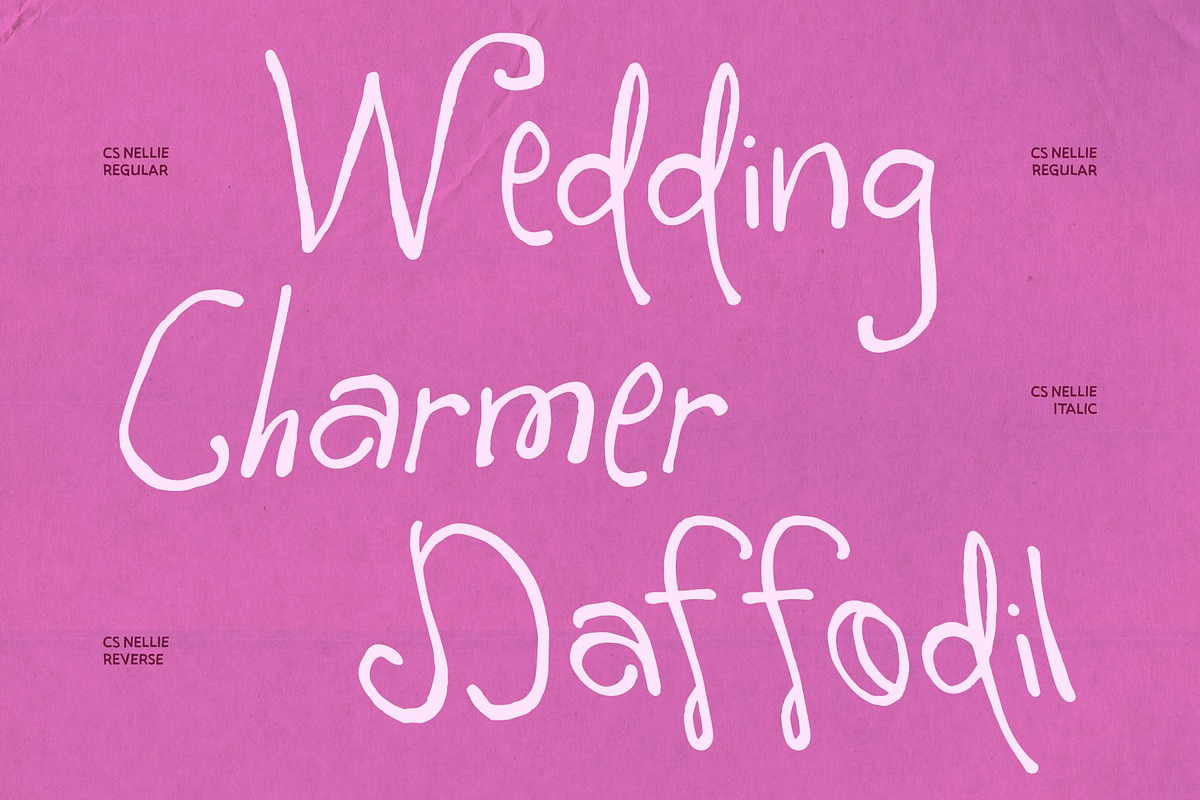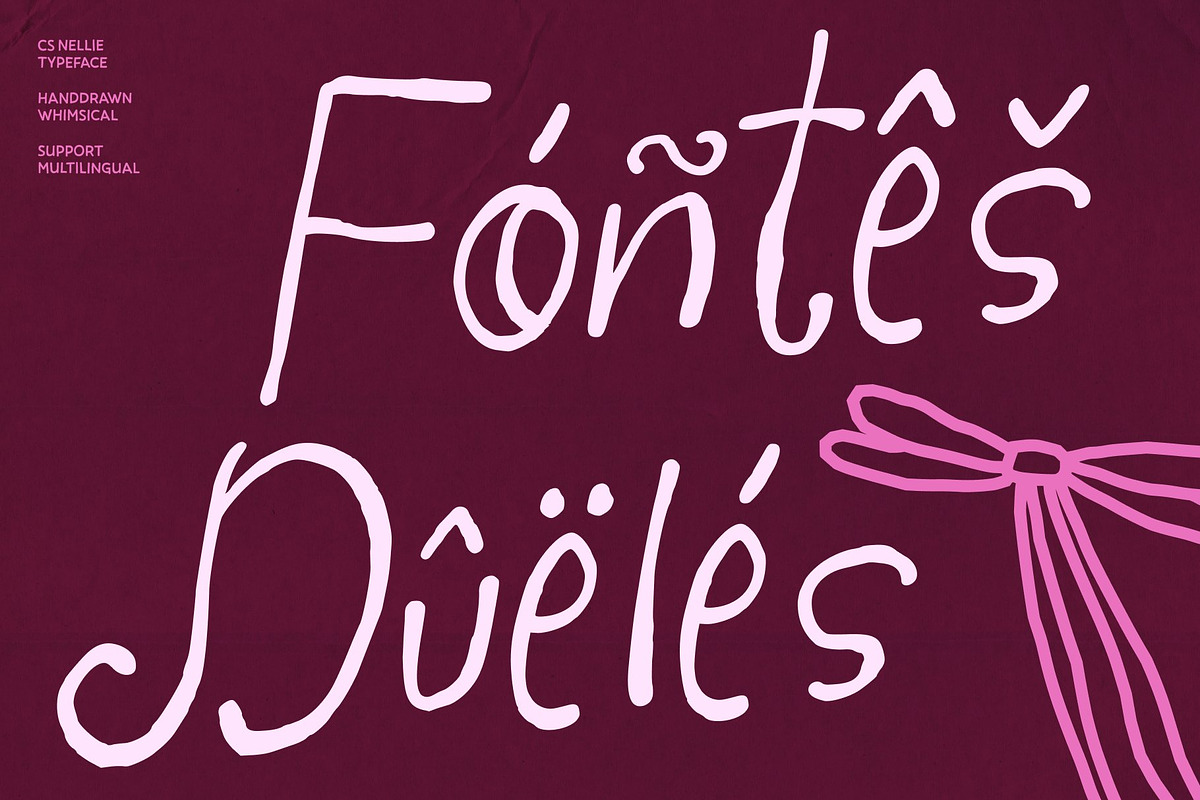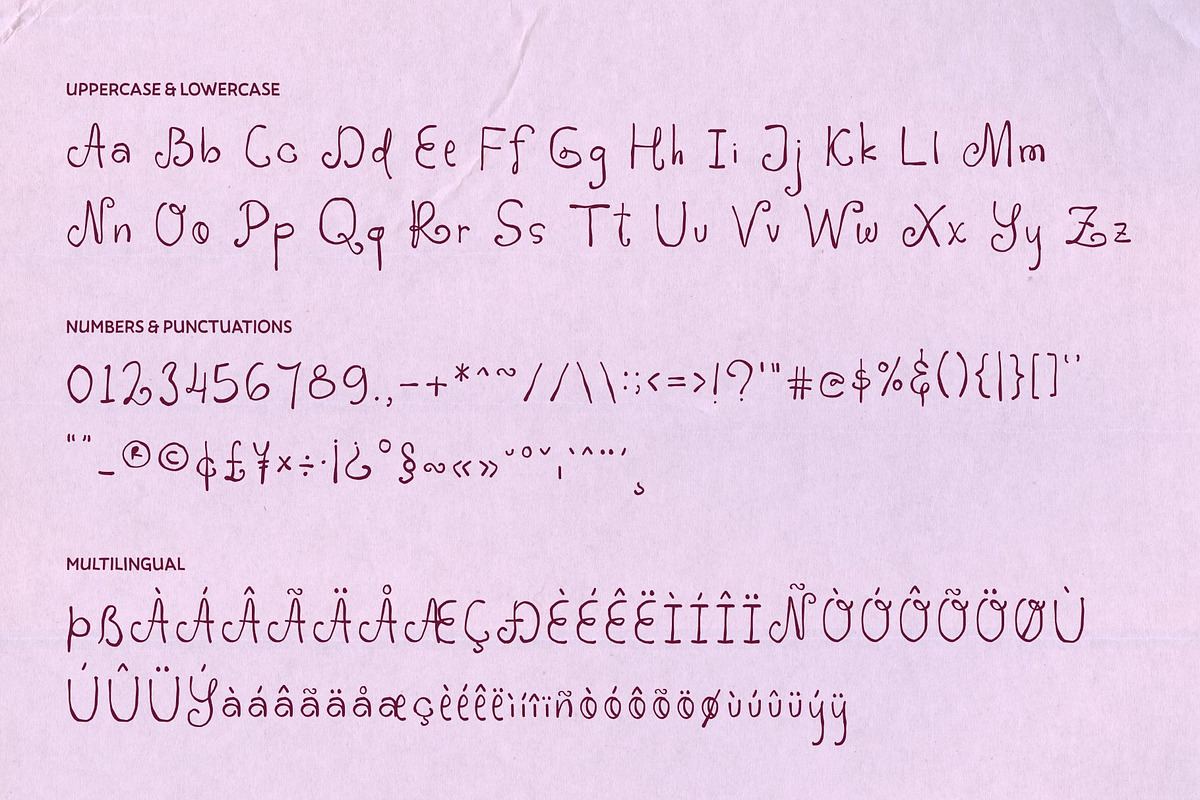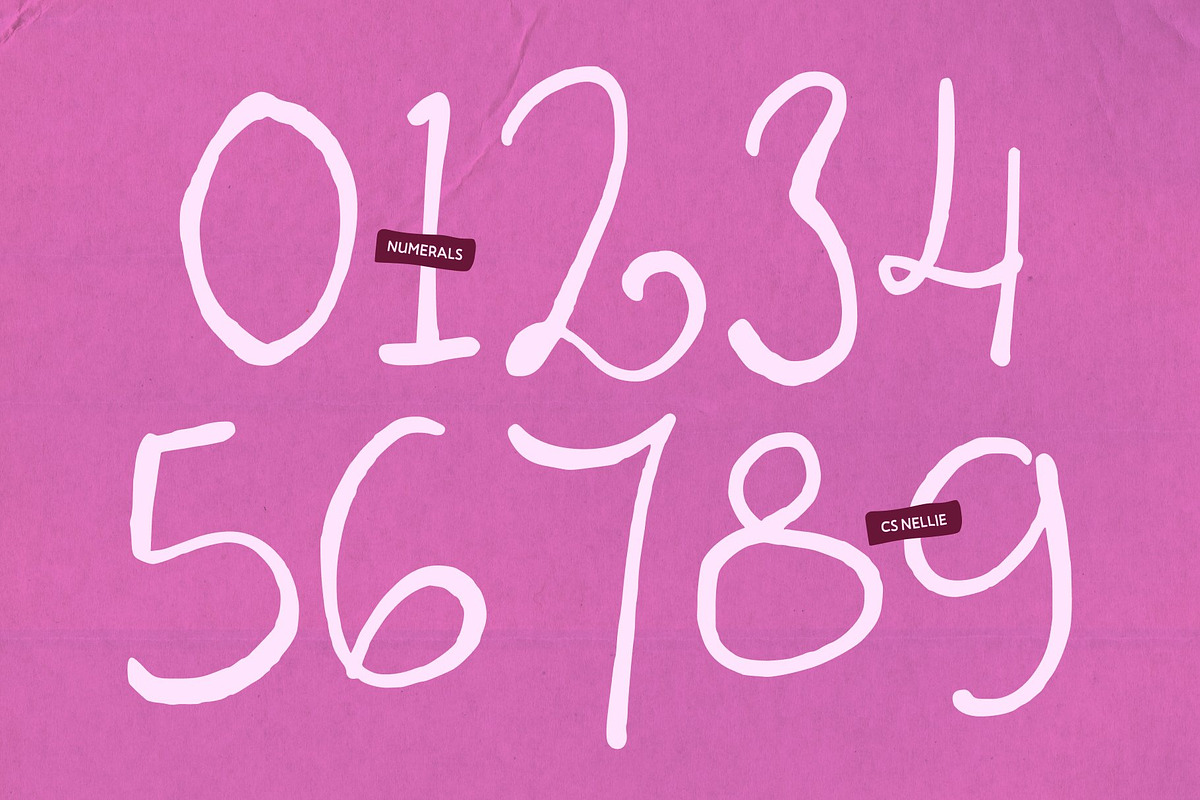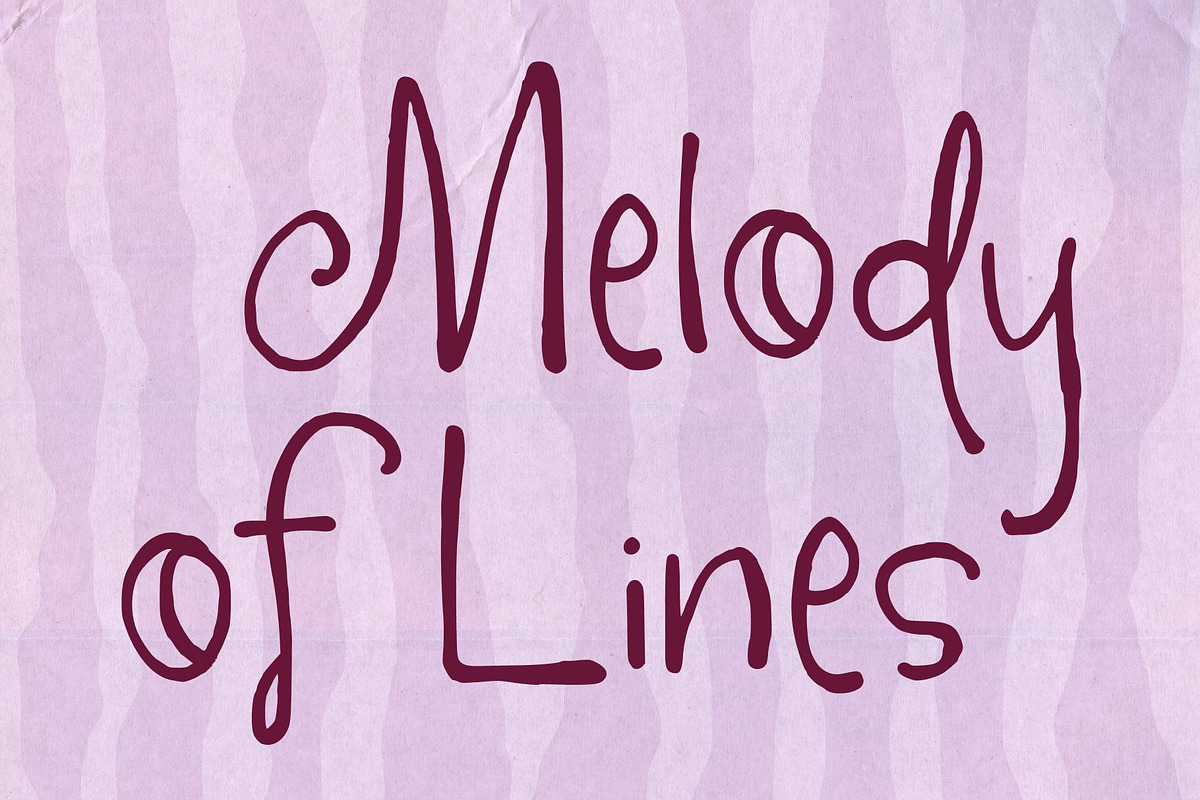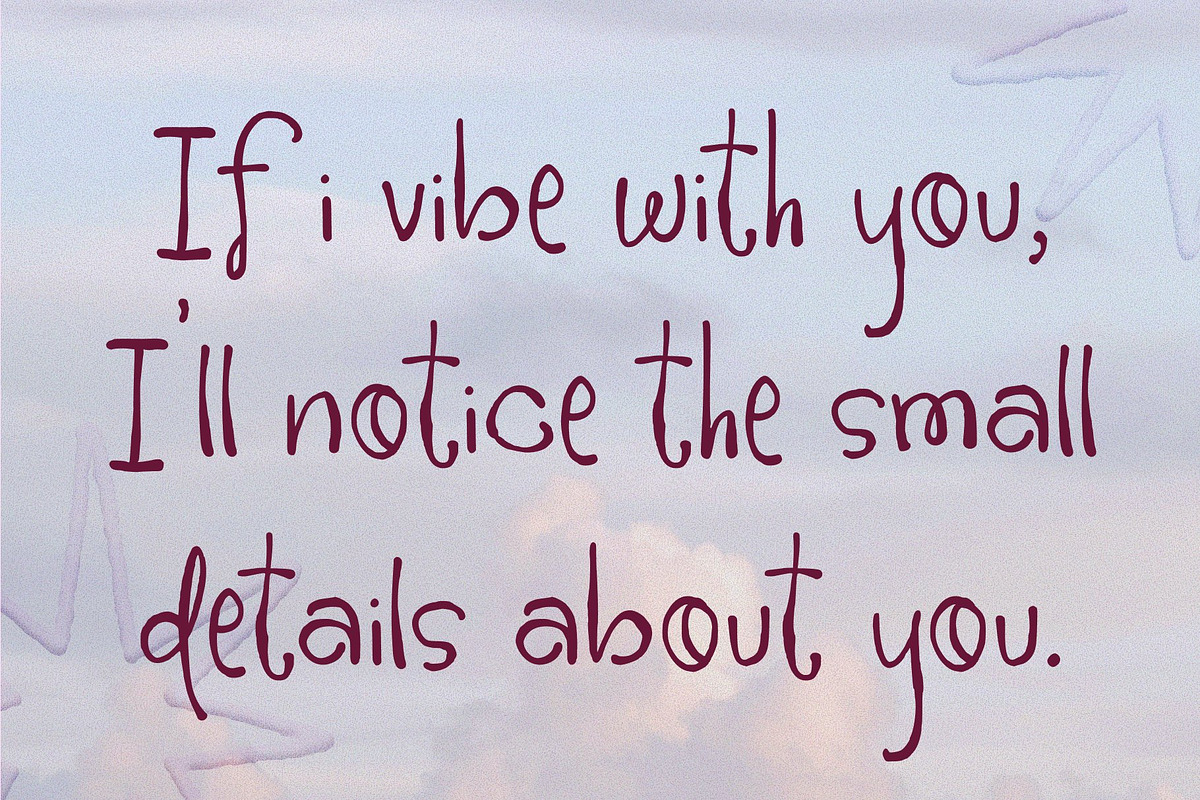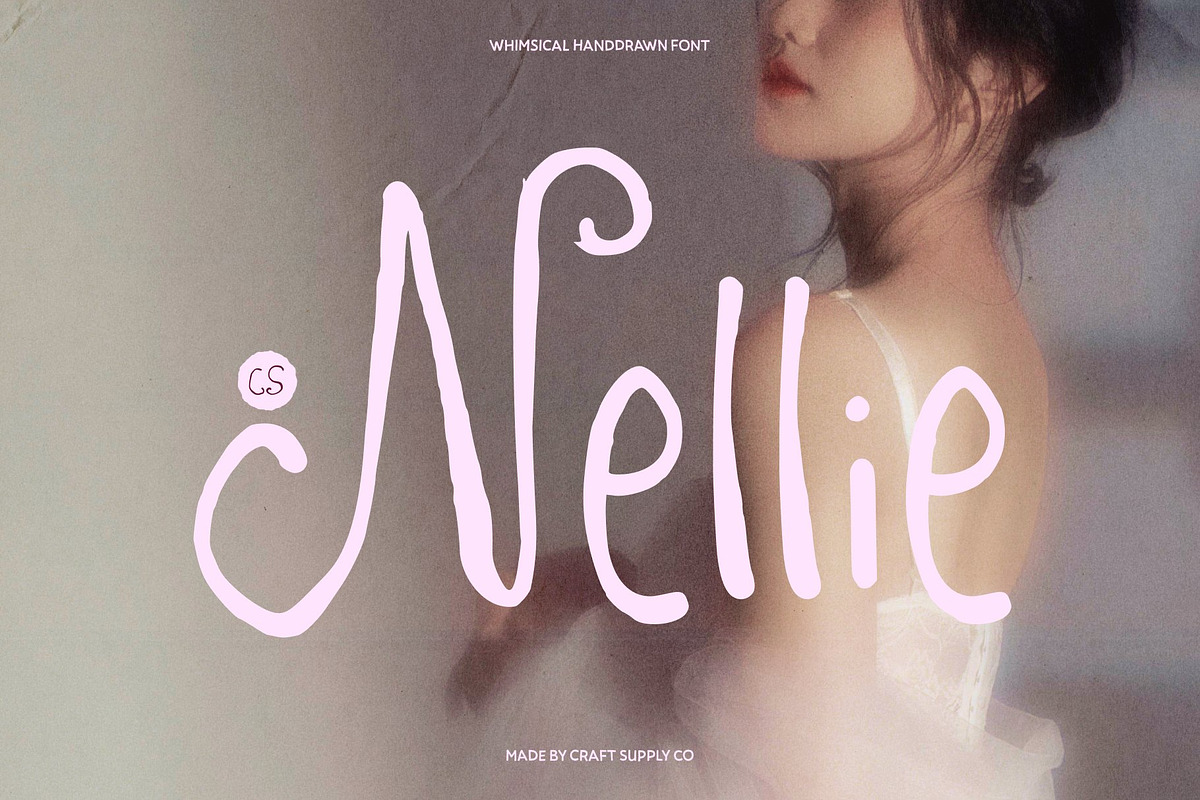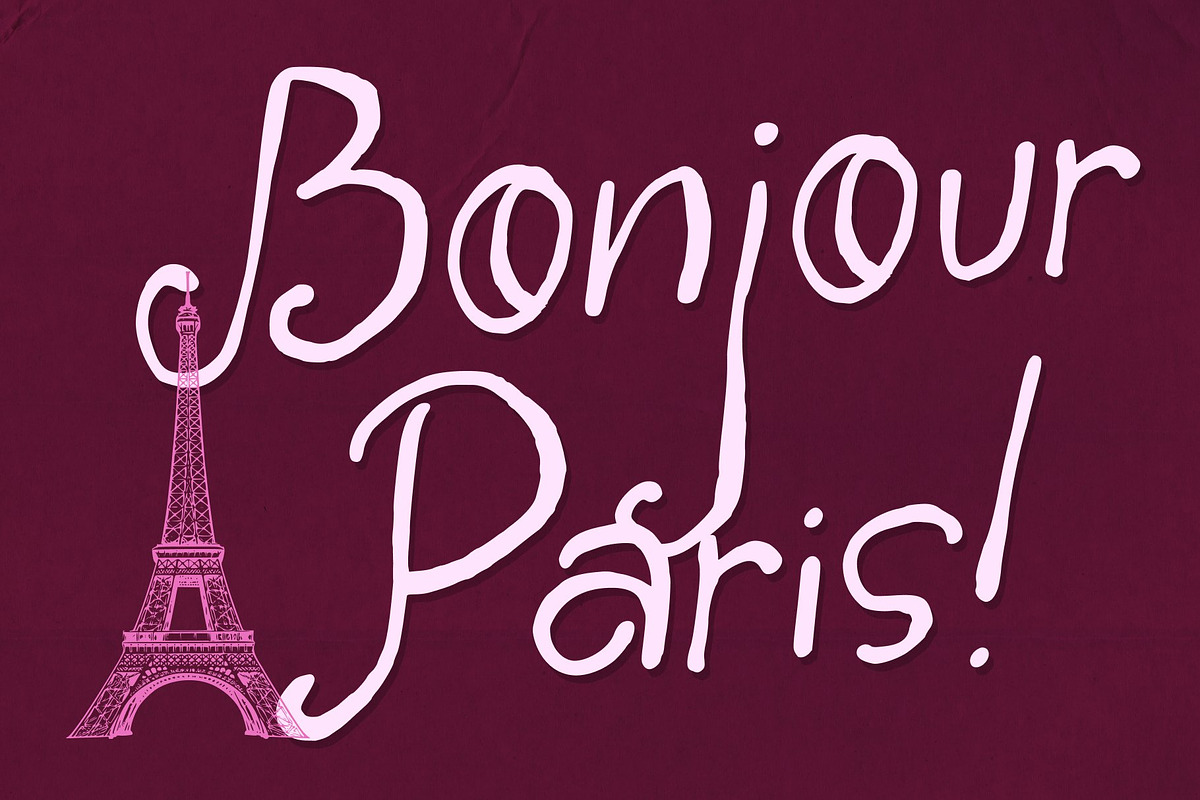
CS Nellie
CS Nellie brings a dreamy, whimsical handwriting character to display work, balancing the warmth of a real hand with the romance of a storybook. Its forms feel tender rather than polished, with a softly uneven presence that keeps every word personal. The result is expressive, intimate, and gently nostalgic without becoming overly ornate.
Tall, sweeping capitals unfurl into generous loops and swashes, creating an immediate sense of movement and ceremony. In contrast, the lowercase letters settle into a gentle, storybook rhythm, connected and flowing like a quiet secret shared on paper. That balance gives CS Nellie a distinctive voice: playful, fluid, and unmistakably human.
Use it for wedding invitations, romantic stationery, greeting cards, book covers, editorial titles, and packaging that needs a personal touch. It can bring softness to a brand wordmark, add narrative warmth to a children’s project, or make a short quote feel like a handwritten keepsake. The flowing forms are especially effective when given room to breathe.
CS Nellie is made for moments that call for feeling over formality. Set a name, phrase, or brief message in its expressive lettering to create a focal point with immediate emotional appeal. Pair its sweeping capitals with the connected lowercase rhythm for a complete, flowing look, or let a few carefully chosen words carry the full charm. Its naive, fairytale quality makes each line feel warm, sincere, and slightly dreamlike.
CS Nellie Regular
CS Nellie Italic
CS Nellie Reverse Italic